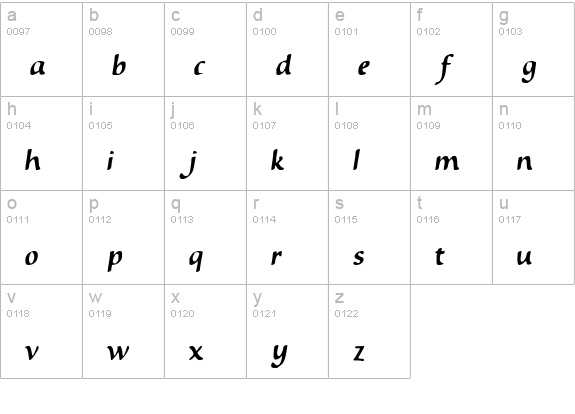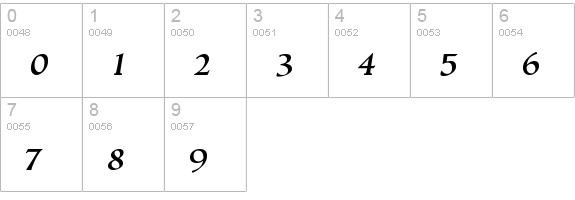
InkyDinky Font Details
InkyDinky font is a visually stunning typeface that is perfect for adding a touch of elegance and uniqueness to your designs. With its delicate and intricate strokes, this font exudes a sense of creativity and sophistication. What sets InkyDinky font apart is not only its impeccable design, but also the fact that it is available for free. Yes, you read that right - this amazing font can be yours without spending a dime. InkyDinky font is freely available to download at FontsMarket.com, a trusted source for high-quality fonts. Whether you're a professional designer looking to add a special flair to your latest project or an aspiring artist exploring the world of typography, InkyDinky font is the perfect choice. Its versatility allows it to be used in a wide range of design applications, including logos, headlines, posters, invitations, and much more. The beauty of InkyDinky font lies in its attention to detail. Each character is meticulously crafted, giving your text a unique and eye-catching appearance. The flowing curves and elegant lines effortlessly blend together, creating a harmonious visual experience for your audience. With InkyDinky font, your designs will stand out from the crowd and leave a lasting impression. Whether you're creating a brand identity or simply adding a touch of sophistication to your personal projects, this font is sure to elevate your work to new heights. So why wait? Experience the beauty and versatility of InkyDinky font today. Head over to FontsMarket.com and download this incredible font for free. Unleash your creativity and let InkyDinky font take your designs to the next level.